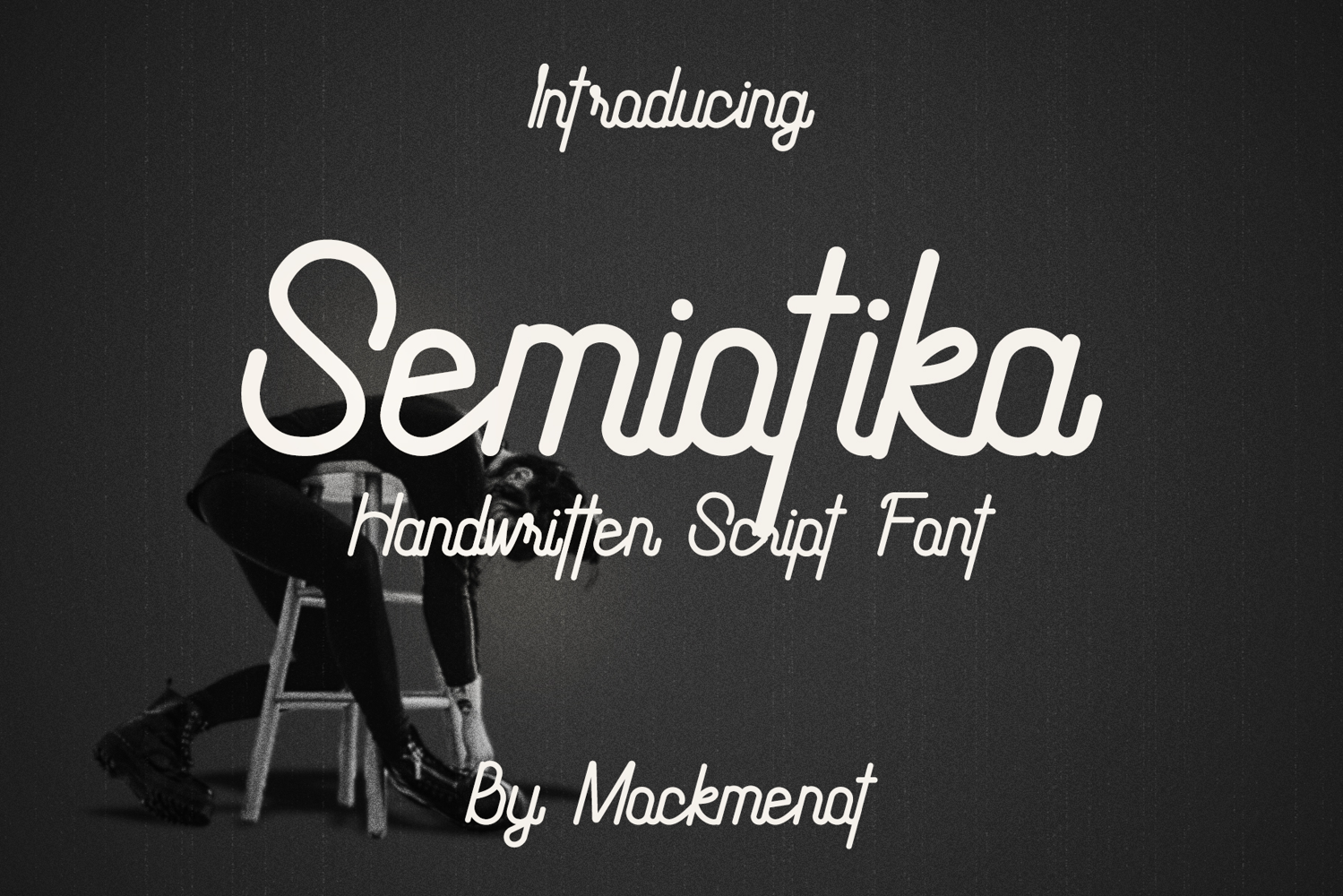
Semiotika - Modern Script Font
Semiotika
Semiotika is a modern handwritten script font with a playful flow and expressive personality. Designed with smooth monoline strokes and natural handwritten movement, this font brings a casual yet artistic feel to every design.
Perfect for branding, coffee shop identity, editorial layouts, social media posts, posters, packaging, quotes, merchandise, and creative projects that need a warm and human touch.
With its clean curves and stylish handwritten character, Semiotika works beautifully for both minimalist and expressive visual aesthetics.